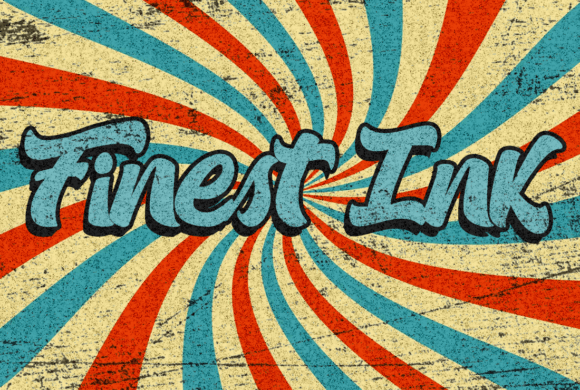
Introducing Finest Ink: The Ultimate Vintage Retro Font for Your Design Needs
In the world of typography, few fonts manage to capture the essence of retro charm and bold style like Finest Ink. This vintage retro font is inspired by the iconic typography and lettering of the 1970s and 1980s, combined with a bold typography style that demands attention. Whether you’re a designer looking for the perfect font for your next project or a business owner seeking to create a unique brand identity, Finest Ink is the perfect choice.
Key Features of Finest Ink Font
- Vintage Retro Style: Finest Ink is inspired by the classic typography and lettering of the 70s and 80s, making it perfect for creating retro-style designs.
- Bold Typography: This font features a bold typography style that is sure to grab attention and make your designs stand out.
- Versatile: Finest Ink is suitable for a wide range of design projects, including vintage and retro designs, badges, logos, t-shirts, posters, branding, packaging, signage, book covers, and more.
Design Applications for Finest Ink Font
Finest Ink is a versatile font that can be used in a variety of design applications. Here are some ideas to get you started:
- Vintage and Retro Designs: Create authentic vintage-style designs with Finest Ink, perfect for posters, flyers, and brochures.
- Logos and Branding: Use Finest Ink to create unique and memorable logos and brand identities that stand out from the crowd.
- T-Shirts and Apparel: Design eye-catching t-shirts and apparel with Finest Ink, perfect for fashion brands and designers.
- Posters and Signage: Create bold and attention-grabbing posters and signage with Finest Ink, ideal for advertising and promotional campaigns.
- Book Covers and Packaging: Use Finest Ink to create striking book covers and packaging designs that grab attention.
The Typography Style of Finest Ink
Finest Ink is characterized by its bold typography style, which is inspired by the iconic lettering of the 1970s and 1980s. The font features:
- Thick and Thin Strokes: Finest Ink features a mix of thick and thin strokes, which gives it a dynamic and expressive feel.
- Rounded and Geometric Shapes: The font combines rounded and geometric shapes, creating a unique and visually appealing aesthetic.
- High Contrast: Finest Ink features high contrast between the thick and thin strokes, making it perfect for creating bold and eye-catching designs.
Why Choose Finest Ink Font?
There are many fonts available that claim to offer a vintage retro style, but Finest Ink stands out from the crowd. Here are some reasons why:
- Unique and Authentic Style: Finest Ink offers a unique and authentic vintage retro style that is hard to find in other fonts.
- High-Quality Design: The font is designed to high standards, ensuring that it looks great in any design application.
- Versatile: This font can be used in a wide range of design applications, making it a great addition to any design library.
In conclusion, Finest Ink is a fantastic vintage retro font that is perfect for designers and businesses looking to create unique and eye-catching designs. With its bold typography style, versatile design applications, and high-quality design, Finest Ink is a great addition to any design library.